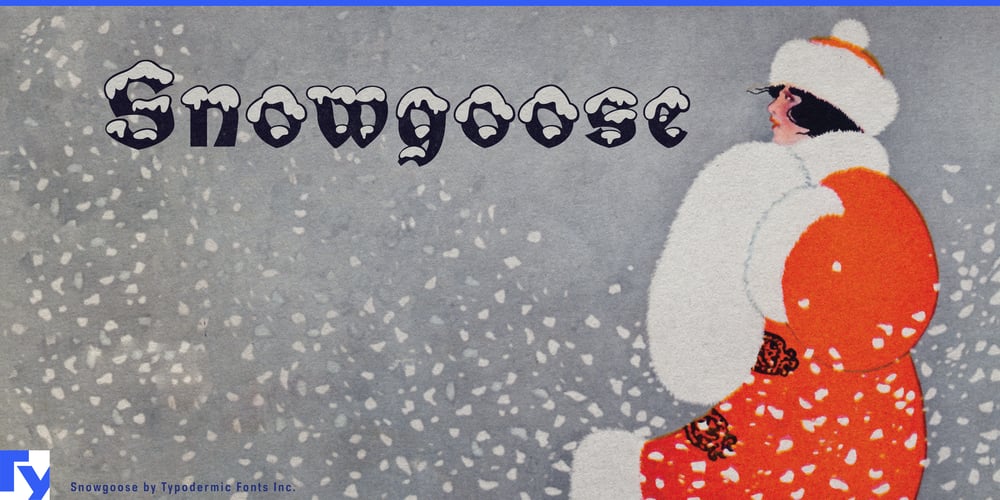
Snowgoose
Snowgoose font
Snowgoose Font Family was designed by Ray Larabie and published by Typodermic. Snowgoose contains 3 styles and family package options. As winter’s chill sets in, Snowgoose emerges as the quintessential Christmas typeface for discerning graphic designers. This innovative typeface transforms ordinary letterforms into glistening, snow-capped wonders, infusing your designs with a touch of frosty enchantment that captures the magic of the season.Snowgoose’s brilliance lies in its effortless fusion of vintage charm and modern aesthetics. Built upon the framework of an old-fashioned typeface, it exudes a timeless appeal while delivering a contemporary winter holiday look. The typeface’s multiple layers work in harmony to create a convincing snow effect, eliminating the need for time-consuming manual alterations or attempts to replicate this look from scratch. Elevate your designs further by adding a subtle, fuzzy light blue shadow to the snow layer, creating a captivating emboss effect that brings your work to life. With Snowgoose, you can craft stunning winter-themed visuals with unprecedented ease, freeing up valuable time to savor the season’s festivities and focus on what truly matters.Snowgoose’s versatility shines through its support for a wide range of Latin-based European writing systems. From English to French, German to Spanish, and beyond, this typeface enables you to create multilingual holiday campaigns that resonate across borders. Whether you’re designing greeting cards, festive advertisements, or seasonal branding, Snowgoose ensures your message is clear and impactful in numerous languages.Embrace the magic of winter with Snowgoose. Its distinctive blend of nostalgia and contemporary flair sets your work apart, making it the perfect choice for designers who demand both style and substance. Make your mark this holiday season—choose Snowgoose and watch your designs sparkle with winter’s enchantment.